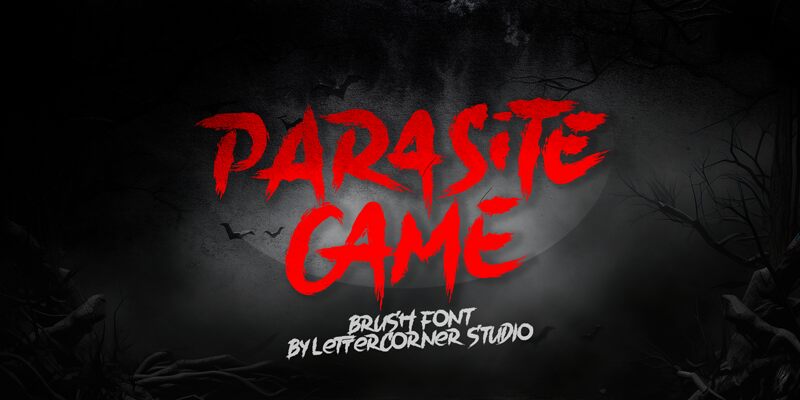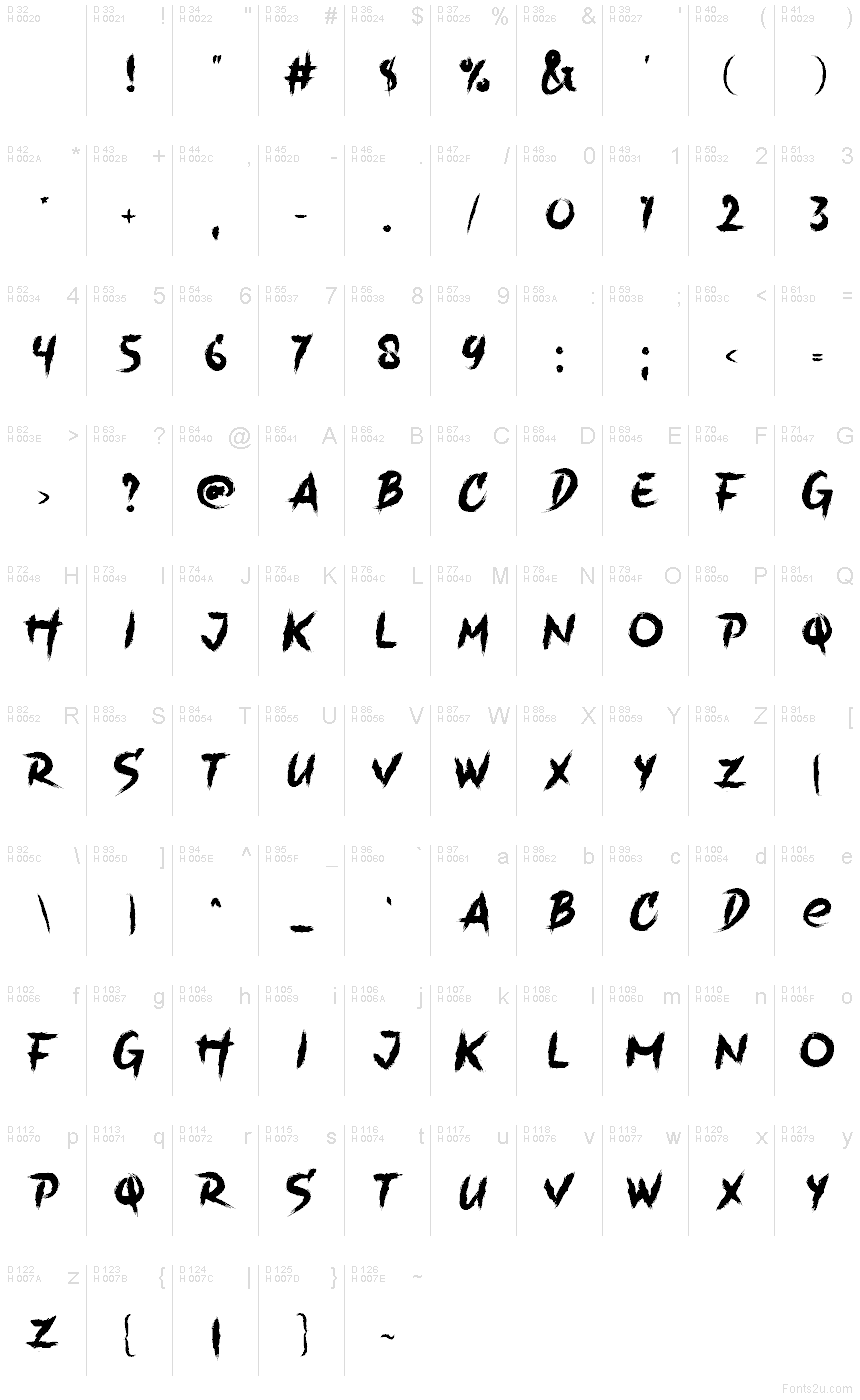
Parasite Game font by Mocha Frappuccino is a free scary display font. Built for dread-soaked headlines, it slashes across the page with ragged, claw-like strokes and wet-ink edges that feel freshly torn. The letters lean and lunge with irregular rhythm, creating that creeping, feral energy horror visuals need without losing legibility at a glance.
Using Parasite Game, your titles snap into character fast—great for horror game logos, slasher movie posters, Halloween flyers, haunted attraction signage, YouTube thumbnails, and grimy zine covers. Set it big to show off the spiky texture, and anchor the layout with a clean sans for captions so the chaos reads clearly. This free font brings instant menace without extra effects.